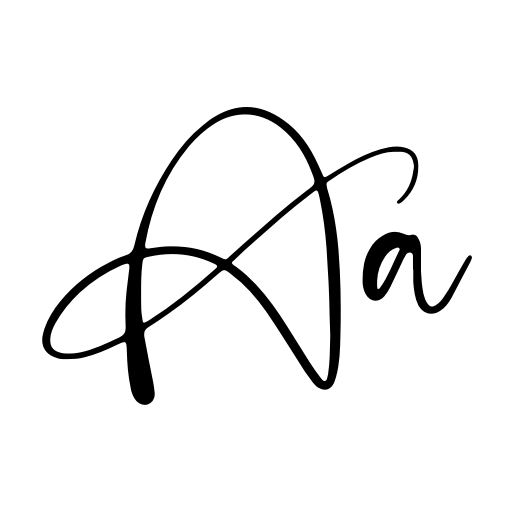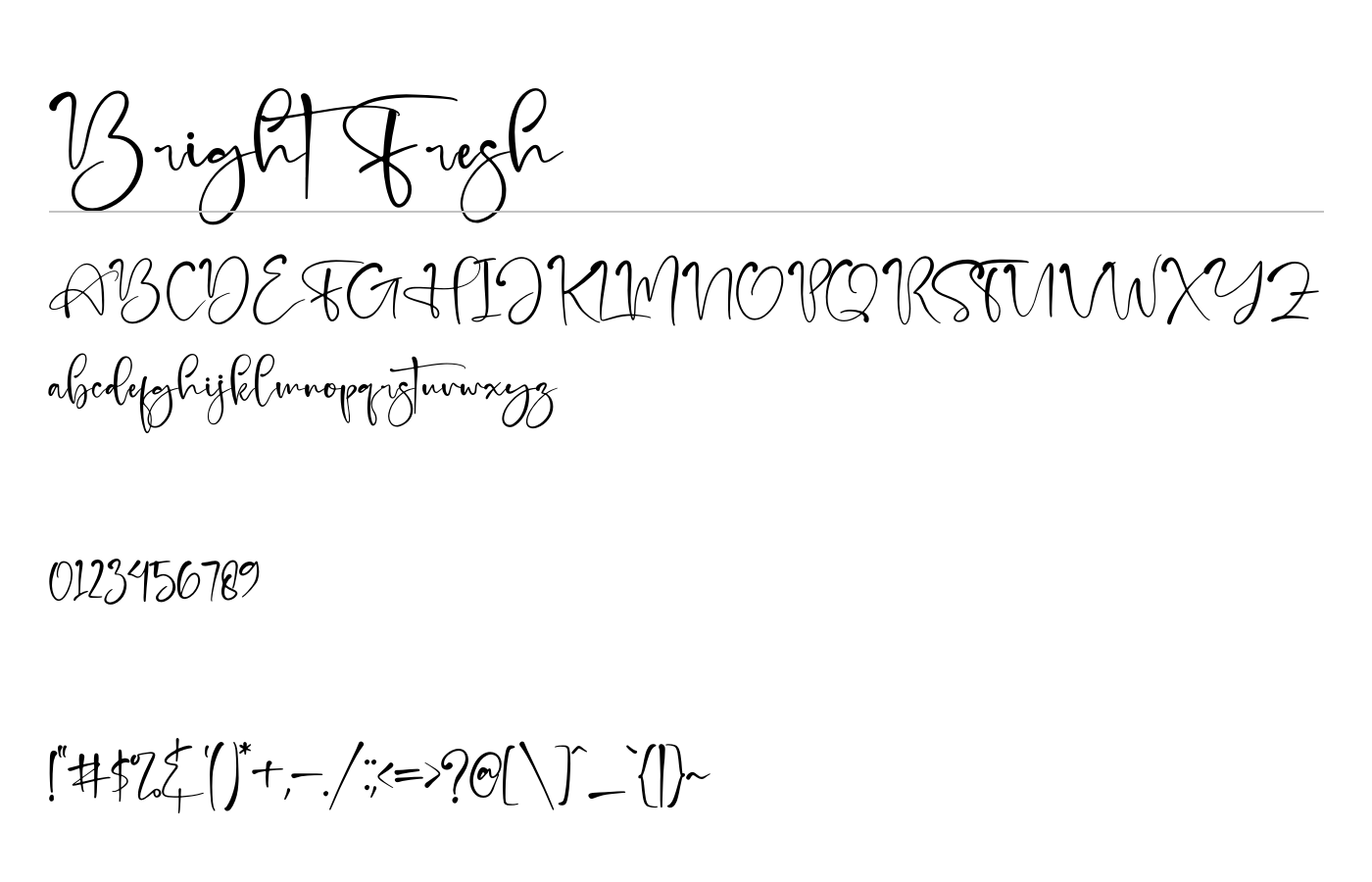
Bright Fresh is a delicate, handwritten script font with a playful, airy feel created by its elegant, flowing strokes and fine contrast. Its whimsical letterforms and unique character shapes make it perfect for artistic branding, invitations, and stylish headlines where a personal, creative touch is desired. This font shines in projects that need a fresh, friendly vibe with a handcrafted elegance.
Bright Fresh Font
About Bright Fresh Font